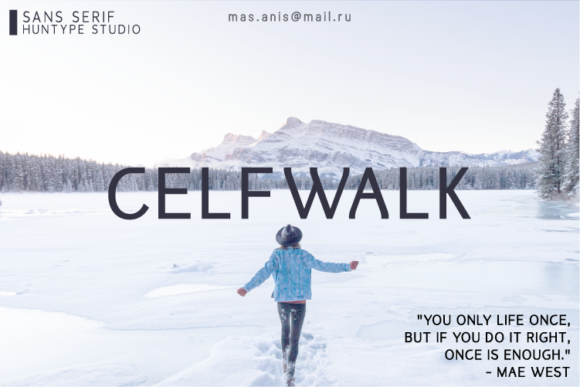
Unleash your creativity with Celfwalk Font, the epitome of elegance and sophistication. This captivating sans serif font, crafted by the visionary designers at Huntype, is designed to elevate your designs with its timeless beauty. Whether you're creating event posters, brochures, logos, or social media graphics, Celfwalk Font will transform your words into captivating masterpieces.
With its neat and beautiful characters, Celfwalk Font exudes an air of professionalism and charm. Its crisp lines and precise curves lend a touch of modern elegance to any design, while its highly legible letterforms ensure that your message is communicated clearly and effectively. Whether you're a seasoned graphic designer or just starting, Celfwalk Font is the perfect choice for adding a touch of sophistication to your projects.
Step into a world of endless creative possibilities with Celfwalk Font. Its versatility and adaptability make it the ultimate choice for a wide range of design projects. Create eye-catching event posters that capture attention and leave a lasting impression. Design brochures and flyers that exude professionalism and refinement. Craft logos that stand out from the crowd with their unique and memorable style. Elevate your social media graphics with typography that captivates and engages your audience.
With Celfwalk Font, the possibilities are limitless. Its timeless beauty and versatility will transform your designs into works of art that resonate with your audience. Embrace the power of Celfwalk Font and unlock a world of design excellence today!